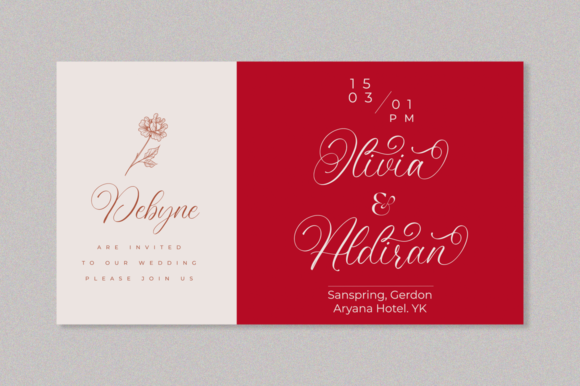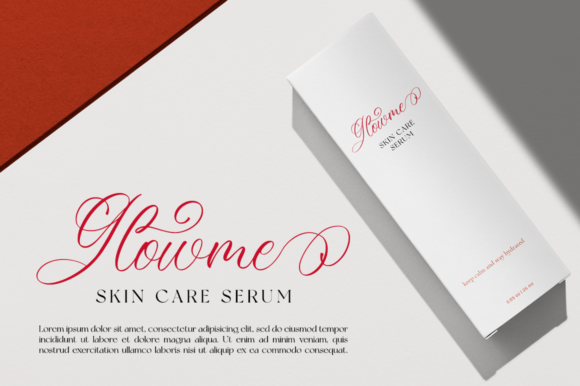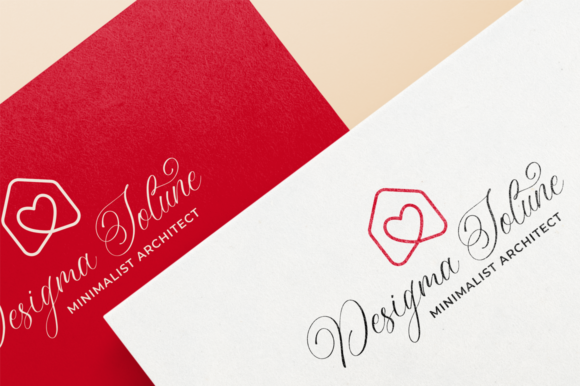
Introduction to Sabiana Font
Have you ever found yourself staring at a blank page, trying to bring a design to life but struggling to find the perfect font? This is a moment we’ve all experienced at some point in our creative journey. As designers, we know how crucial the right font can be in elevating our work and making it truly stand out.
That’s where Sabiana Font comes in – a beautiful script font that’s sure to add an extra layer of elegance and sophistication to any project. With its refined style, this font is a valuable resource for designers looking to create high-quality designs, from logos and branding to invitations and stationery.
Whether you’re working on a wedding design or a social media post, Sabiana Font is the perfect design resource to help you achieve your creative vision. And the best part? It’s available for free download, making it an accessible and convenient option for designers of all levels.
Sabiana Font
- High-quality design resource with a unique, elegant style
- Supports a wide range of languages, including Latin, Cyrillic, and Greek alphabets, making it a versatile design resource
- Perfect for designers and artists working on creative projects that require a high-quality, elegant font with a transparent background
Honest Review: Sabiana Font
I recently had the chance to work with Sabiana Font for a creative project, and I must say, it’s been a great experience. This font has a lot of potential for designers looking for a high-quality, modern font to use in their designs.
- ✨ The Sabiana Font has a clean and elegant design, making it perfect for a variety of creative projects, from brochures to website headers.
- ✨ The font also supports transparent backgrounds, allowing for seamless integration with images and other design elements.
- ⚠️ While the font is high-quality, it’s not as extensive as some other font families I’ve worked with.
Overall, I’m impressed with the Sabiana Font and would definitely recommend it as a design resource for anyone looking for a clean, modern font to use in their designs.
Sabiana Font
The Sabiana Font is a free download that can be used as a design resource for any creative project. With its high quality and transparent background, it’s perfect for adding a touch of elegance to your designs.
Tips for Getting the Most Out of Sabiana Font
For the best results, use the Sabiana Font with a high contrast background to make the text stand out. You can also experiment with different font sizes and styles to add visual interest to your designs.
The Sabiana Font is perfect for use in wedding invitations, business cards, and other formal designs. Its elegant and sophisticated look makes it ideal for use in any creative project where you want to add a touch of class.
Alternatives to Sabiana Font
Open Sans is a popular sans-serif font that is highly legible and versatile. It is ideal for use in a variety of creative projects, such as website design, mobile apps, and digital signage. Open Sans is a high-quality font that is suitable for both body text and headings. When to use: For projects that require a clean and modern design aesthetic.
Comparison to Sabiana Font: While Open Sans is more formal and serious in tone, Sabiana Font has a more playful and whimsical feel. Open Sans is a better choice for projects that require a professional and sophisticated look.
Montserrat is a geometric sans-serif font that is highly versatile and suitable for a wide range of design projects. It is ideal for use in creative projects that require a modern and urban feel. Montserrat is a high-quality font that is suitable for both body text and headings. When to use: For projects that require a bold and edgy design aesthetic.